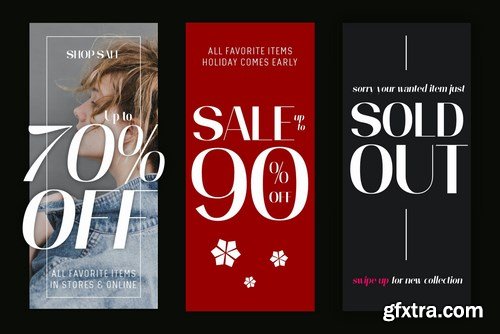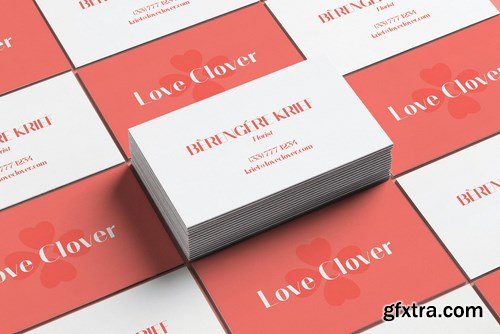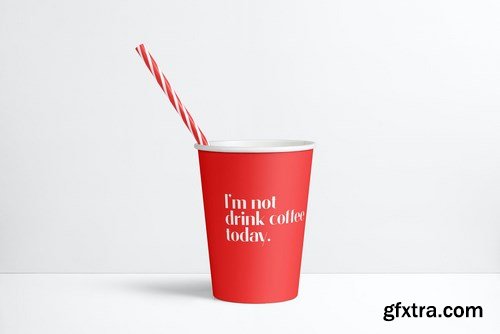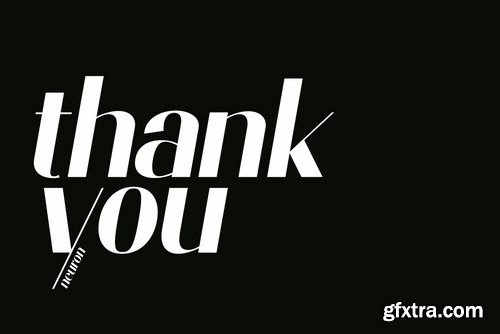
Prague is an elegant, classic, yet modern display font. Inspired by the beauty of the city, Prague aim to be one of sophisticated display font. It has clean and contrast, bold and chic. I’ve decided to remove ‘serif’ to give more modern feeling and more versatility. I’m very sure Prague has personality that can reflect your brand.
Features; Personality; Elegant, classic, modern, bold, chic, unique, creative. Style; Regular & Italic. Multi language support; Afrikaans, Albanian, Catalan, Croatian, Czech, Danish, Dutch, English, Estonian, Finnish, French, German, Hungarian, Icelandic, Indonesian, Italian, Lithuanian, Maltese, Norwegian, Polish, Portuguese, Romanian, Slovak, Slovenian, Spanish, Swedish, Turkish, Zulu.